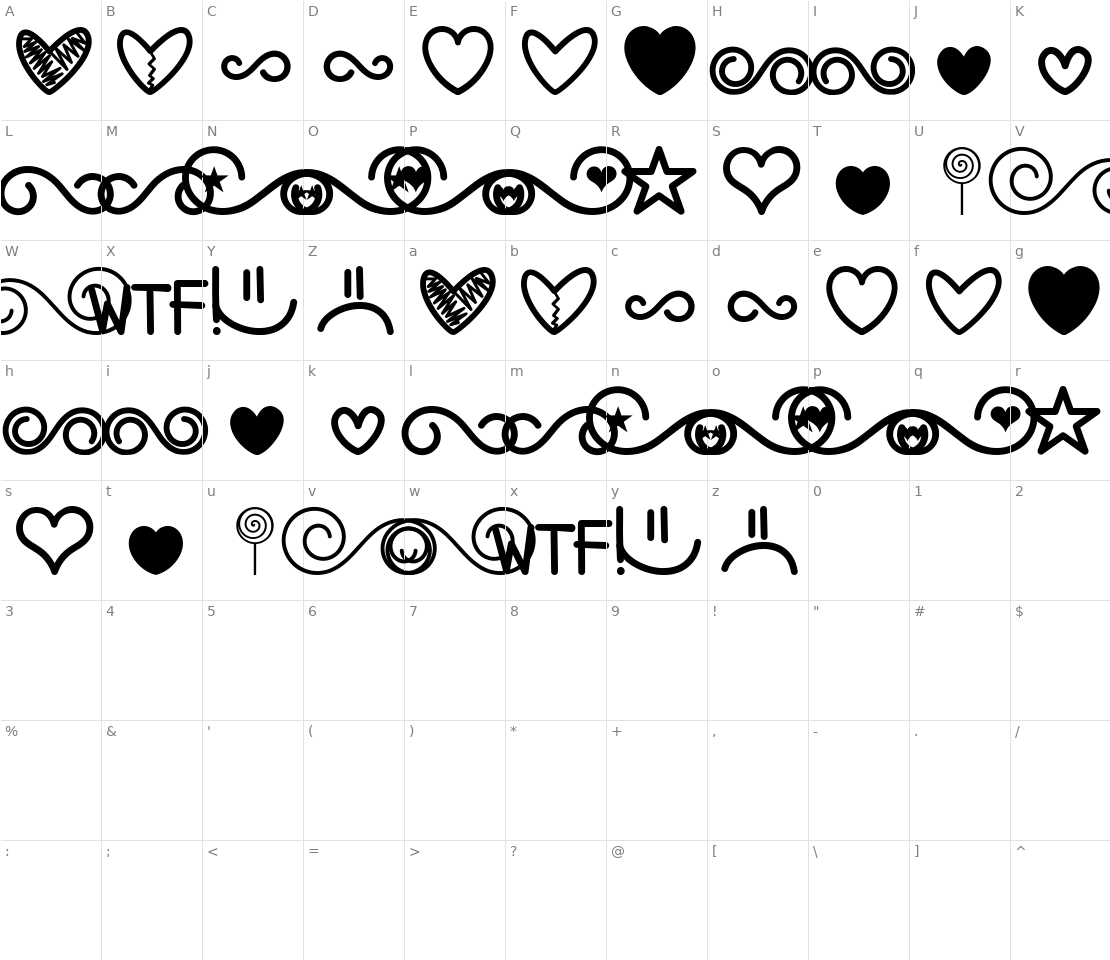
MF Dings 3
MF Dings 3 is a dingbat font from Misti's Fonts filled with hearts, swirls, and romantic symbols geared toward Valentine's Day and love-themed projects. The set leans decorative and whimsical, with ornamental flourishes alongside various heart shapes. Useful for invitations, greeting cards, scrapbooking, and anywhere you need a quick romantic accent without reaching for clip art.